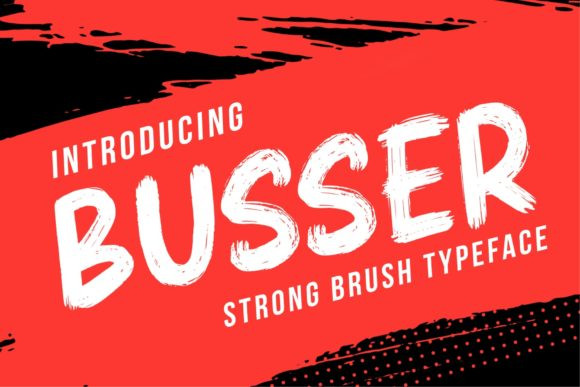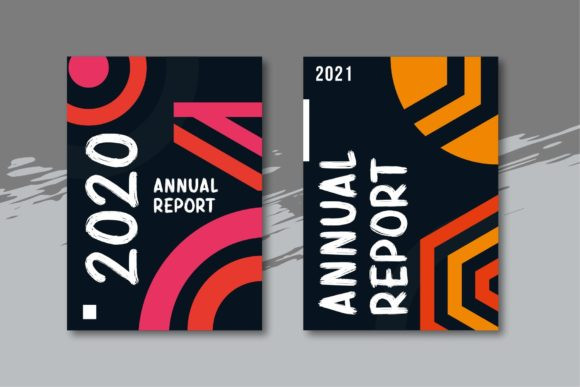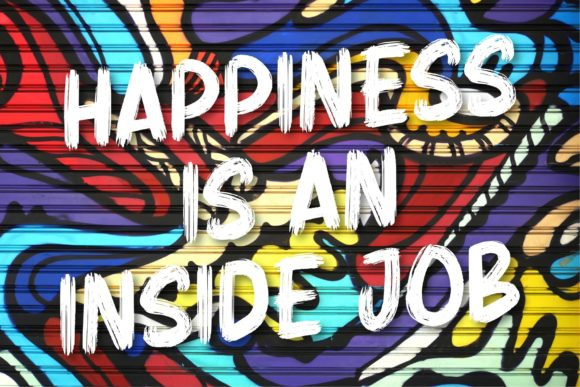
Busser Font
Busser is a cool, brushed and urban styled display font. This font is suitable for designs such as t-shirts, sportswear, logos, advertisements, clothing, and more.